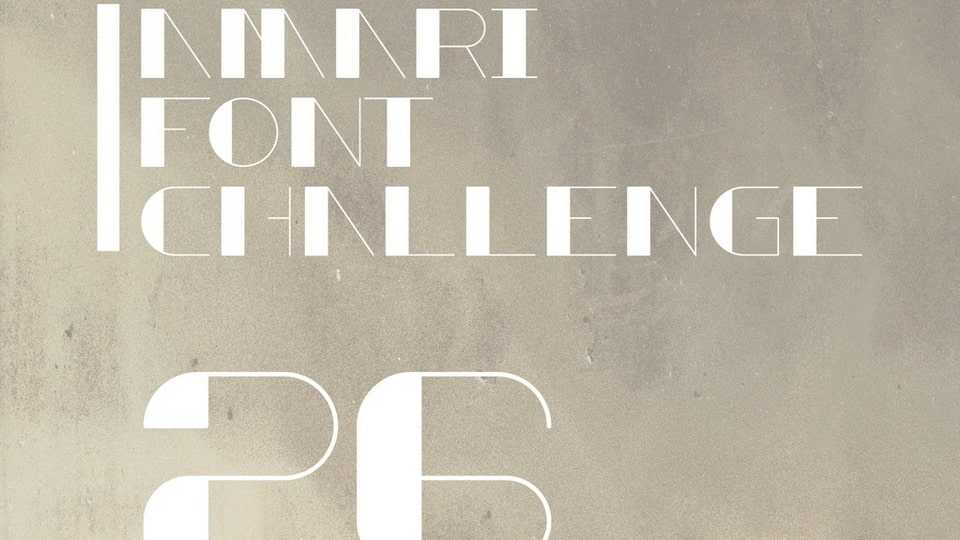
Download Amari Font 26/100, a modern high contrast display typeface based on geometric shapes and modules. With its unique look the font is great for posters, headlines, logos, branding and editorial projects.